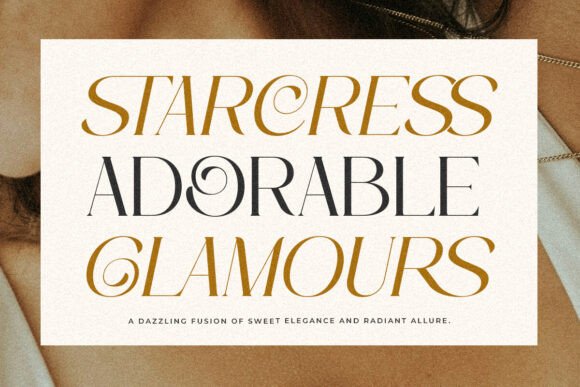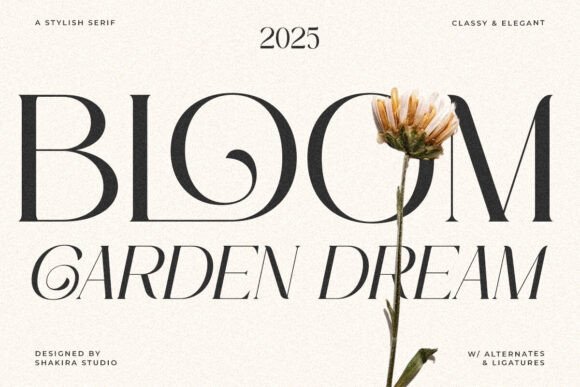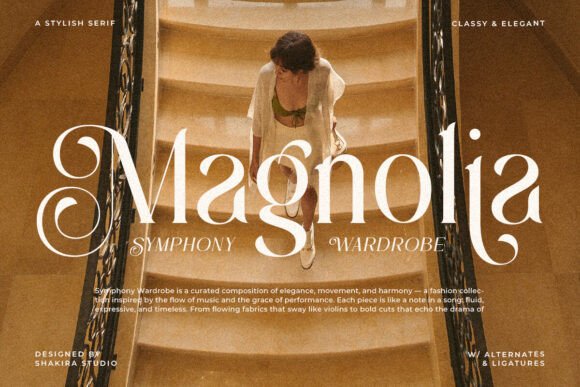
Introduction to Kinda Gold Font
Kinda Gold is a sophisticated serif typeface that radiates contemporary elegance with a touch of luxury.
Featuring both Regular and Italic versions with exquisite alternates and ligatures, this font is meticulously crafted for premium branding, high-end logos, luxurious packaging, and editorial designs that demand refinement and prestige With its graceful serifs and fluid italic variant, Kinda Gold delivers exceptional versatility for brands seeking both sophistication and impact.
Key Features of Kinda Gold Font
Why Choose Kinda Gold Font?